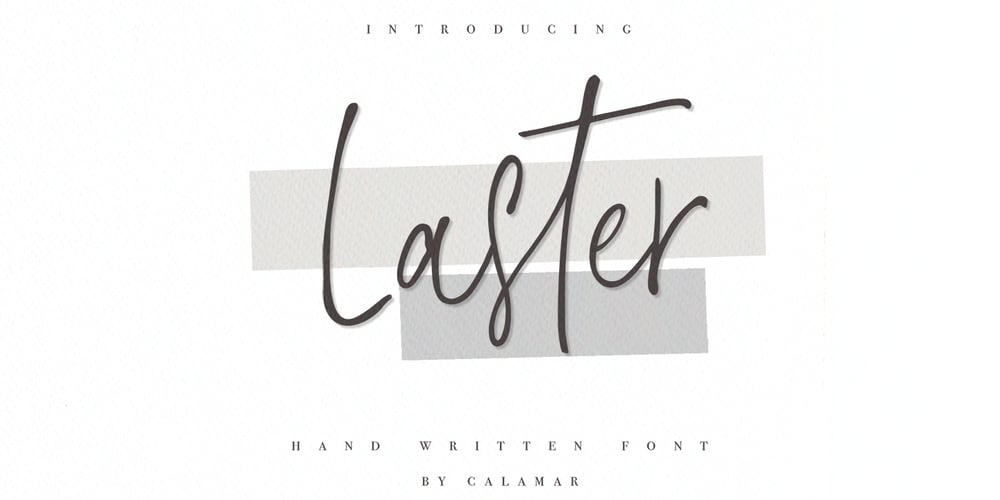
Laster
Laster font
Laster Font Family was designed by Oksana Petrenko and published by Calamar. Laster contains 1 styles and family package options. Introducing you my NEW Laster Font! It’s hand-drawn signature font with dancing baseline and elegant smooth lines that will look awesome on your branding materials, wedding invitations, headings, greeting cards and any other amazing projects you are working on. Laster font includes Upper and Lowercase Basic Characters, Standard and Discretionary Ligatures, Numbers and Punctuation. Laster is also available for Western European, Central European and South Eastern European Languages.